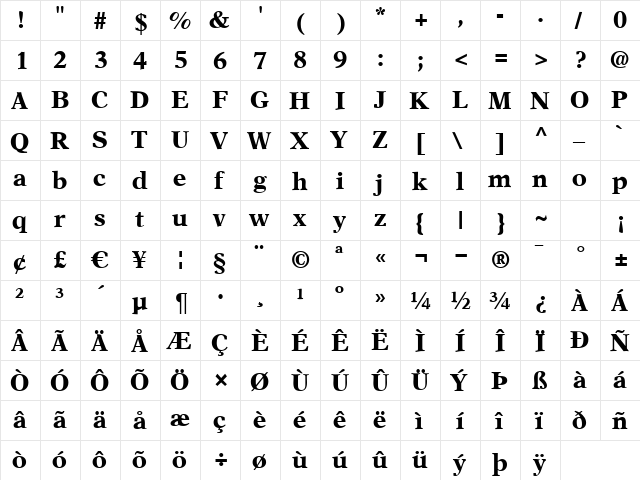
A831-Roman Bold
Design Context for A831-Roman Typeface
A831-Roman offers clean, dependable letterforms without strong stylistic allegiance, making it a practical choice for designers who need flexibility. Its bold stroke weight gives it real presence on the page.